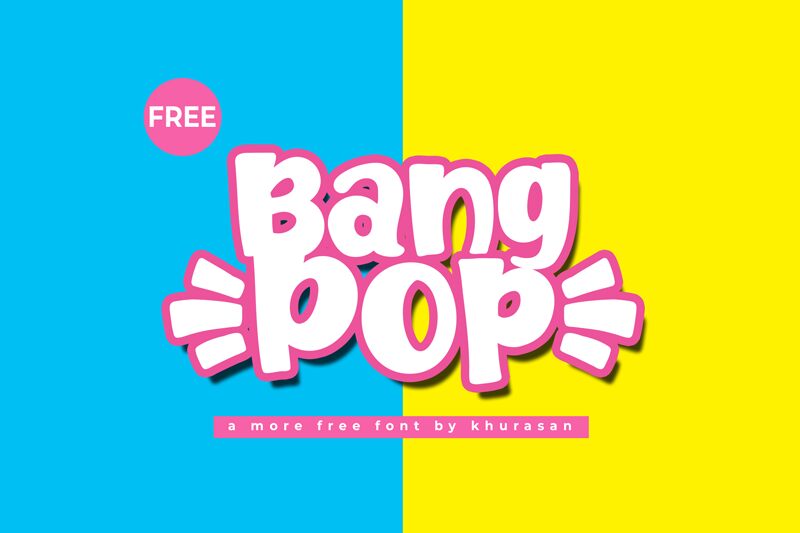
Bangpop font family by Khurasan™ dazzles with its whimsical and energetic cartoon style. Designed with eye-catching vibrance in mind, this font effortlessly captures a youthful spirit suitable for applying on children's books amongst other. Its casual feel adds a modern and expressive twist on any typographic project where vibrant energy is desired. The font family comes in 2 styles that can be mixed together along with fun illustrations to create unique playful designs.
Bangpop is impactful and cheerful – any graphic design project using it will get this particular essence rendered to it. Posters, logotypes, titles, flyer headlines, shirt designs, and packaging projects are just a few of the many ways to use this beautiful font family. Quotes, greeting cards, and comics deserve their mention too as artistic ideas worth pursuing with this font. If you feel like creating or decorating any stickers or labels, you know which typeface will be your best and most loyal friend.